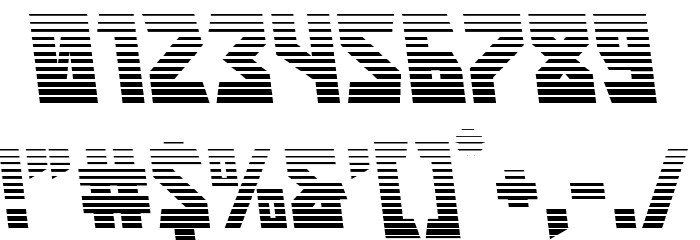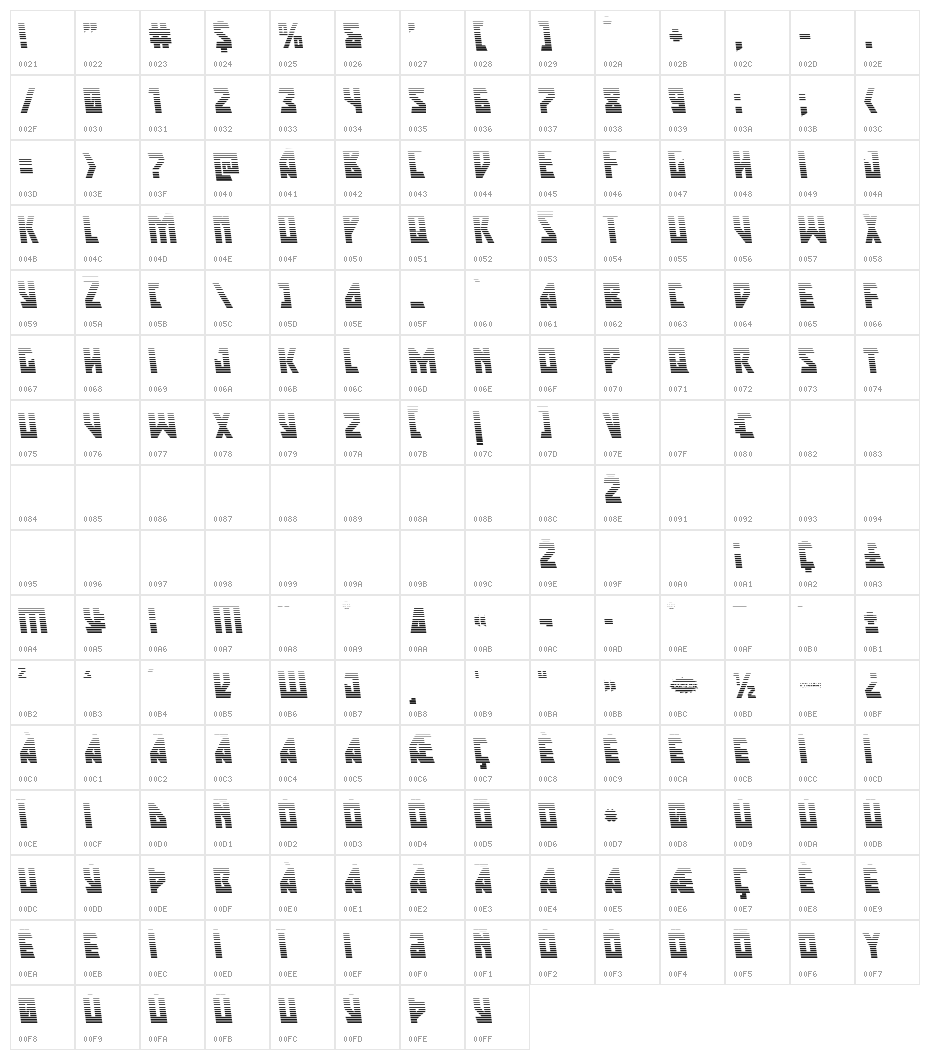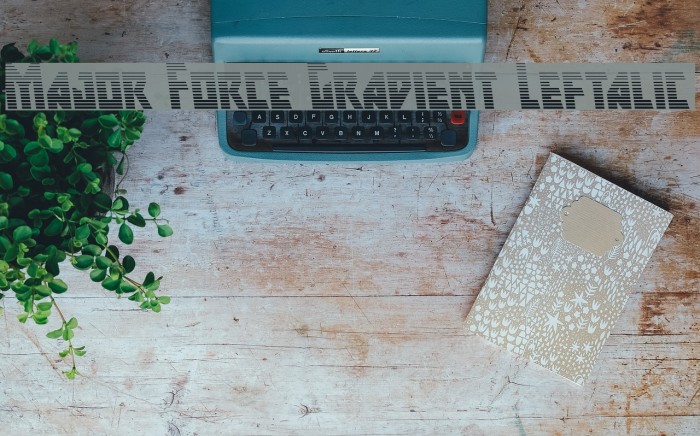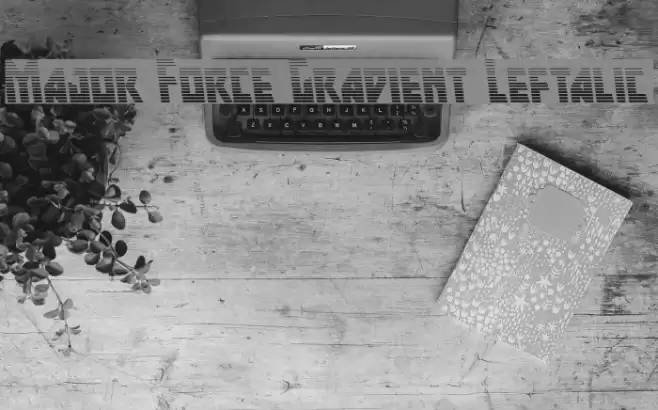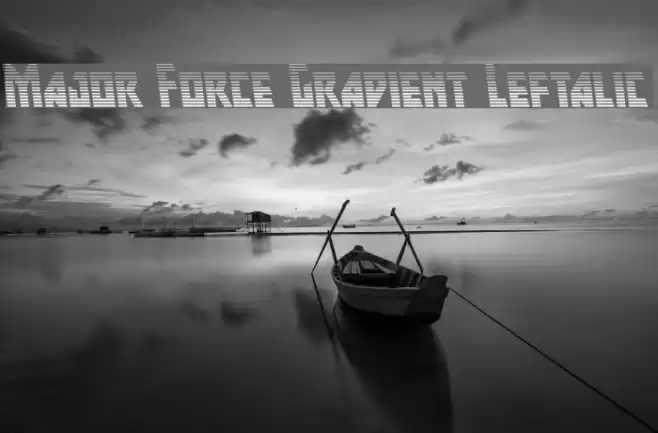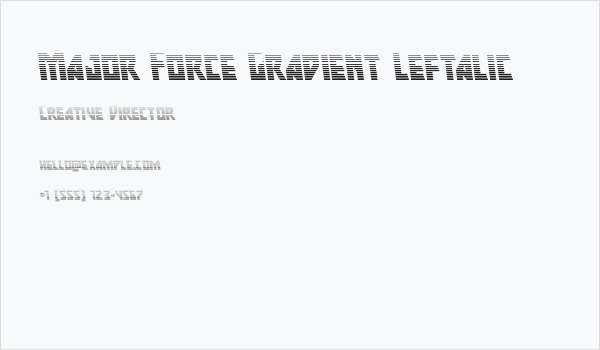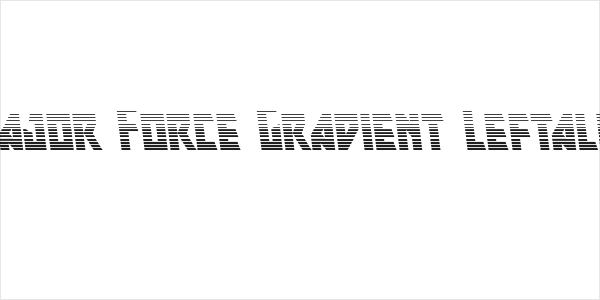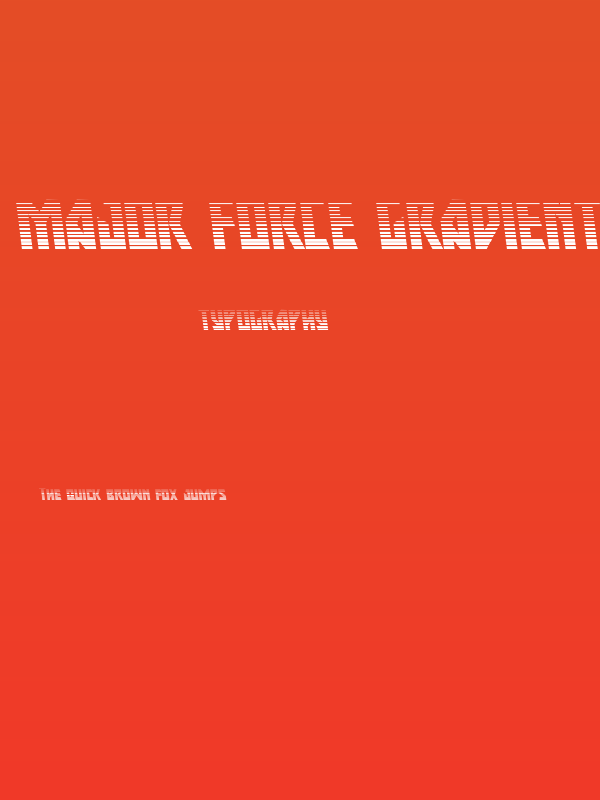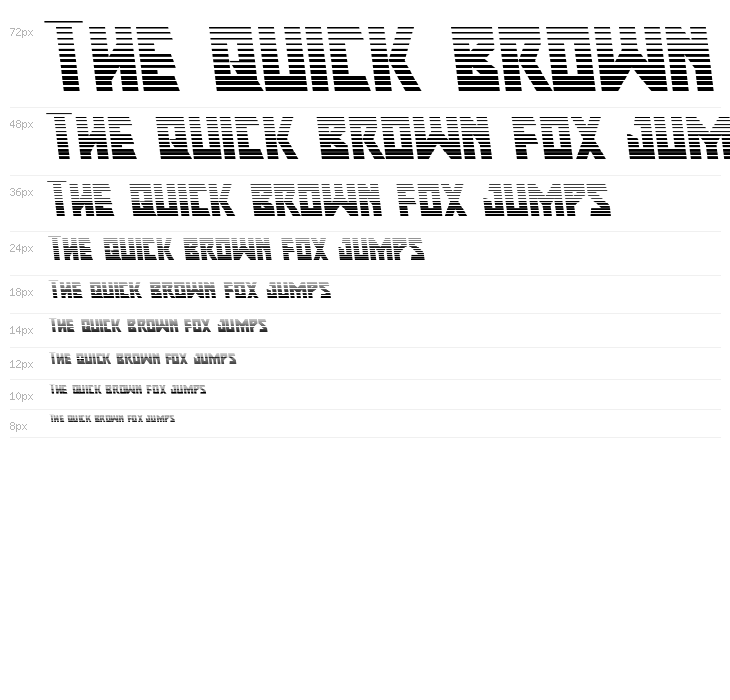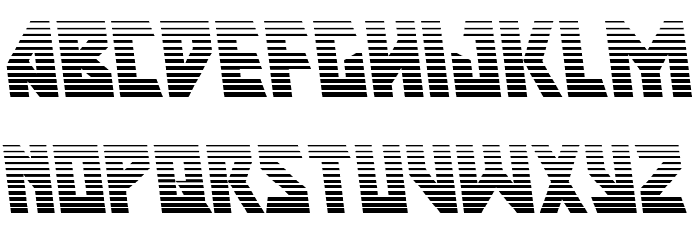
Major Force Gradient Leftalic Font
Major Force Gradient Leftalic Description
This font features a bold, futuristic design with a distinct horizontal stripe pattern that creates a gradient effect. The characters are angular and geometric, giving a sense of movement and speed. The uppercase and lowercase letters, as well as numbers and special characters, maintain a consistent style, emphasizing the dynamic and modern aesthetic. The font's unique structure makes it stand out, with each character appearing as if it's in motion, perfect for projects that require a strong visual impact.
Proposed ProjectsIdeal for sci-fi themed designs, video game titles, posters, and branding that requires a modern and dynamic look.